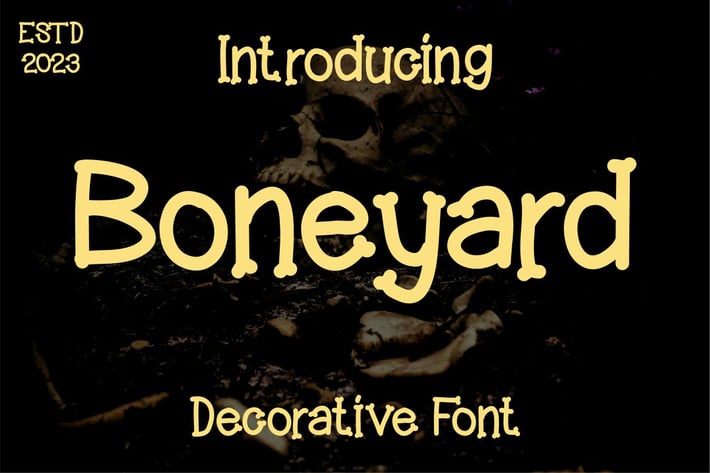
Boneyard Font
Introducing our new product Boneyard Font - Modern Font
Boneyard Font - Modern Font is a bold and authentic display font. The font is suitable for any branding project like logo, t-shirt printing, and many more. outstanding in a wide range of contexts.